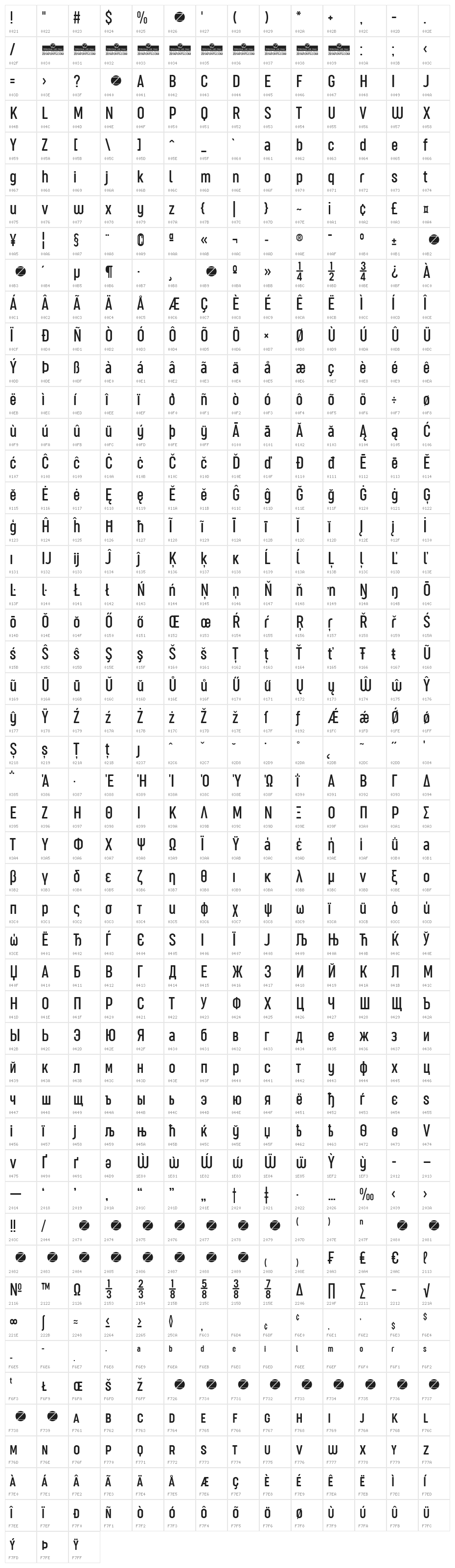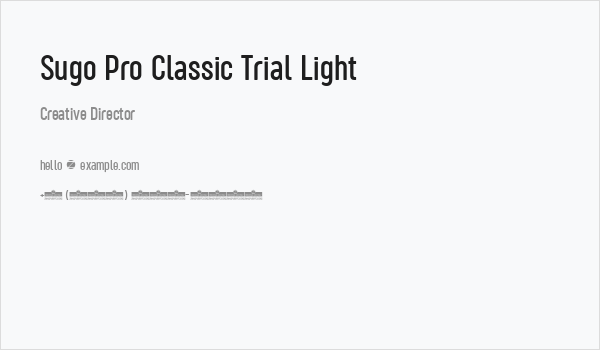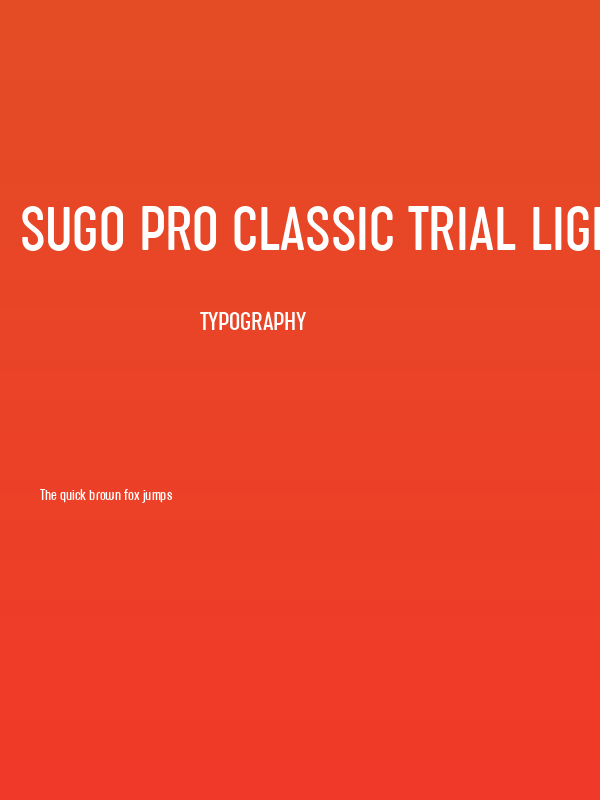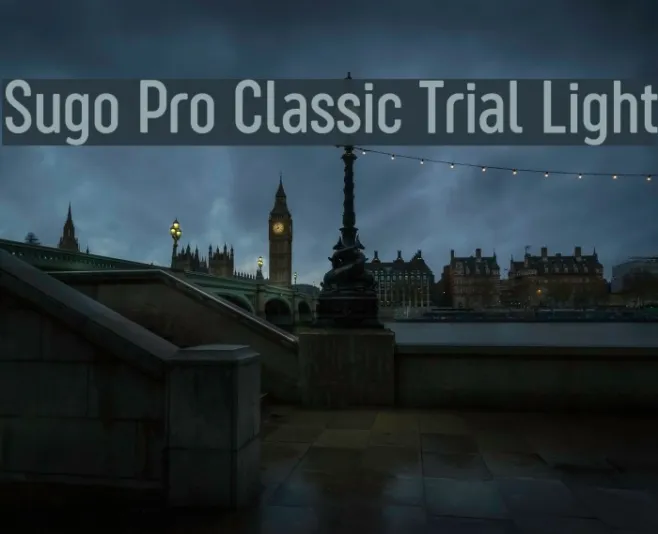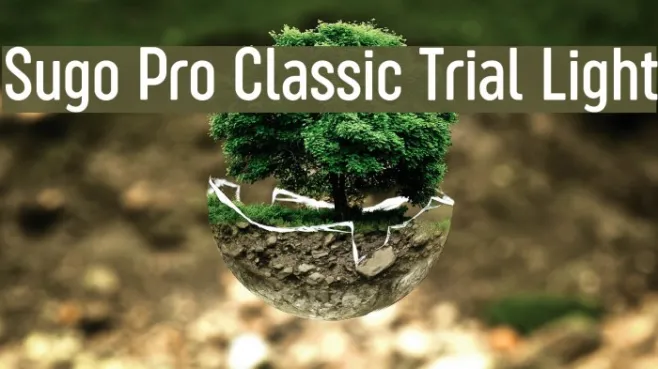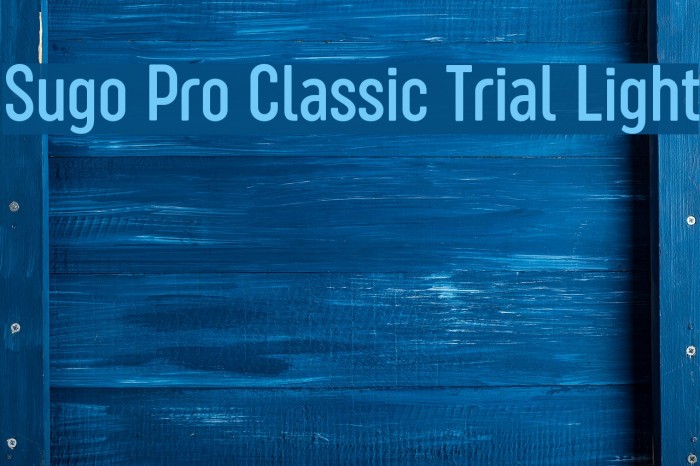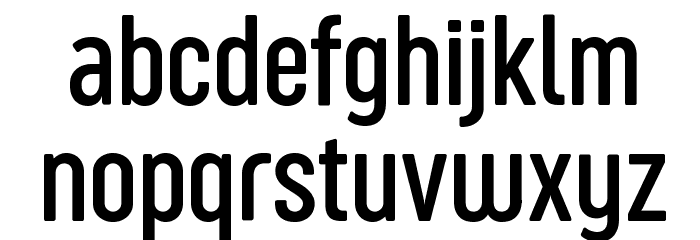
Sugo Pro Classic Trial Light Font
Sugo Pro Classic Trial Light Description
This font features a clean and modern sans-serif design with a uniform stroke width, giving it a sleek and contemporary appearance. The characters are tall and slightly condensed, which enhances readability and provides a professional look. The uppercase letters are bold and commanding, while the lowercase letters maintain a consistent style that complements the overall aesthetic. The numerals and special characters are designed with the same attention to detail, ensuring a cohesive look across all text elements. This font is versatile and can be used in a variety of design contexts.
| Use Case | Headlines, Body text, Logos |
| Proposed Projects | Ideal for branding, web design, advertising, and editorial projects. |